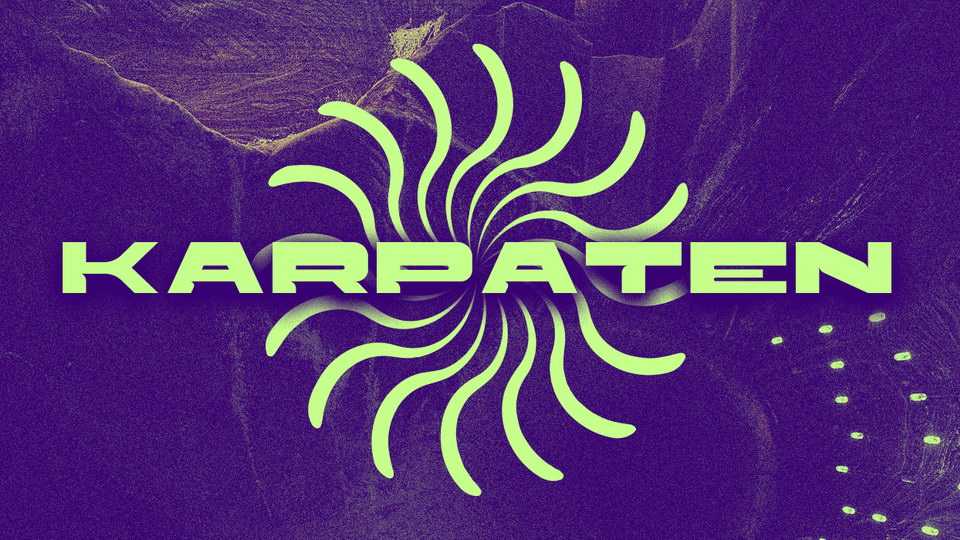
Download Karpaten font, a contemporary display typeface with the combination of a bold wide look combined with small refined details. Karpaten is ideal for posters and modern artworks.
Designer: Luis H. J. Rapp